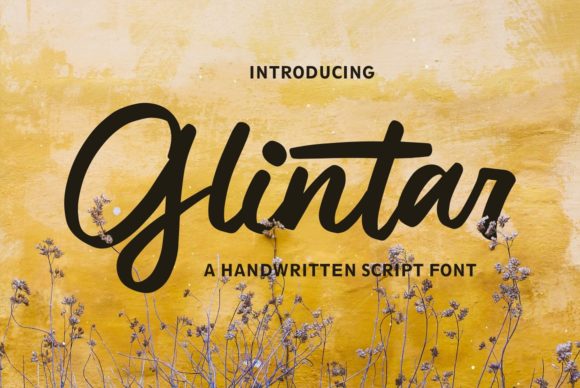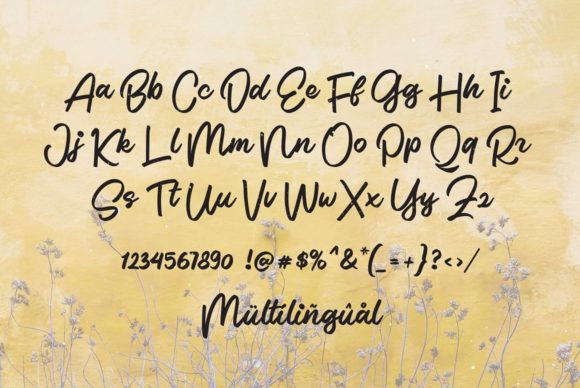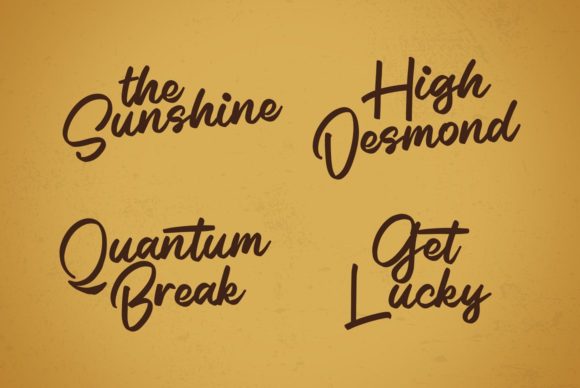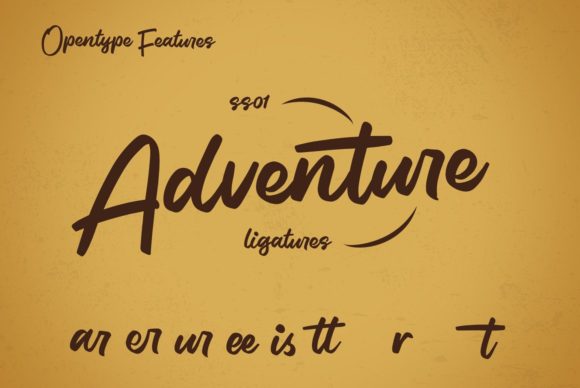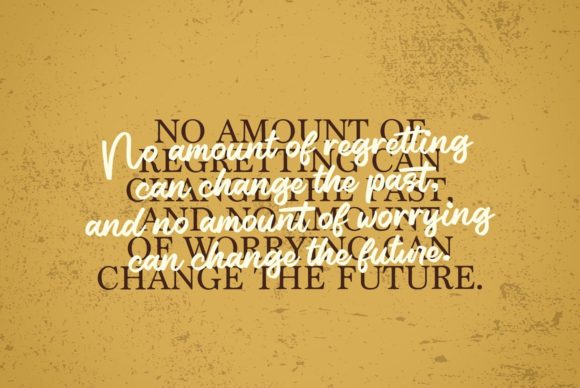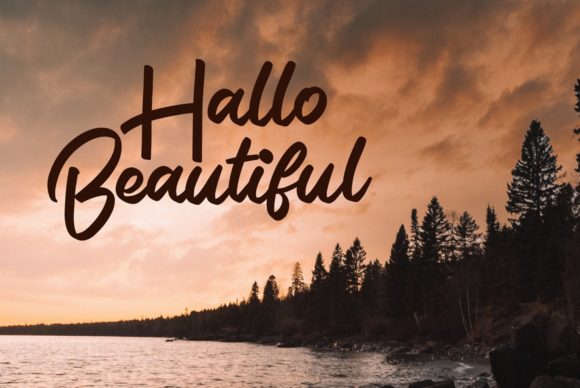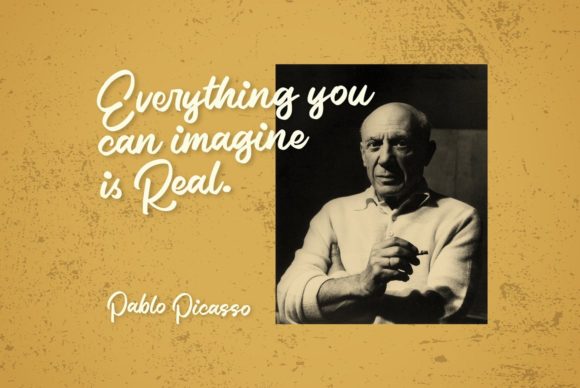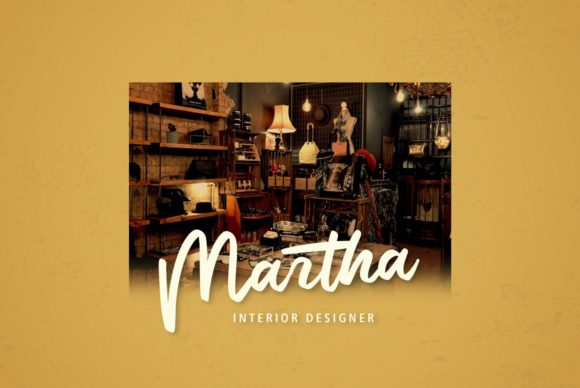
Glintar Font
About Glintar Font
Glintar is a stylish and incredibly elegant script font. It looks stunning on wedding invitations, thank you cards, quotes, greeting cards, logos, business cards and every other design which needs a handwritten touch.